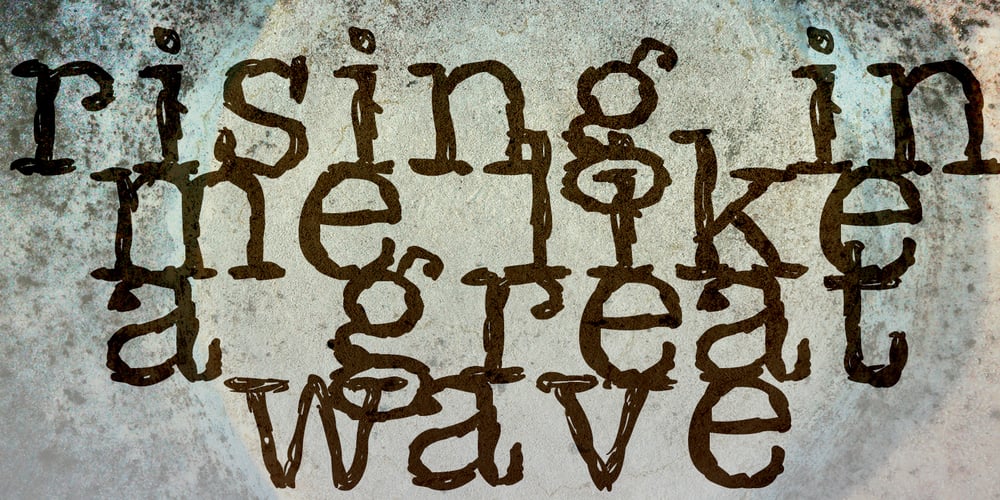
Sketchwriter Font Family was designed by Nathan Williams and published by Baseline Fonts. Sketchwriter contains 1 styles and family package options. Sketchwriter™ is a terribly fun hand-drawn typeface designed with many uses in mind. At small point sizes, it’s a little grungy. The larger the display, the more interesting the stroked glyphs become.